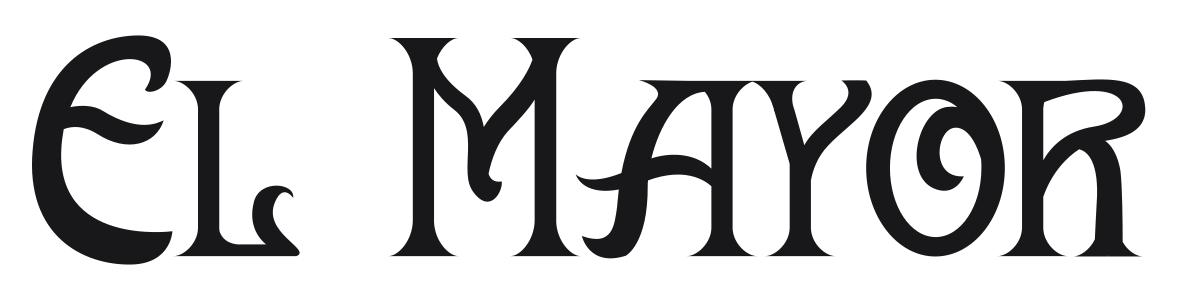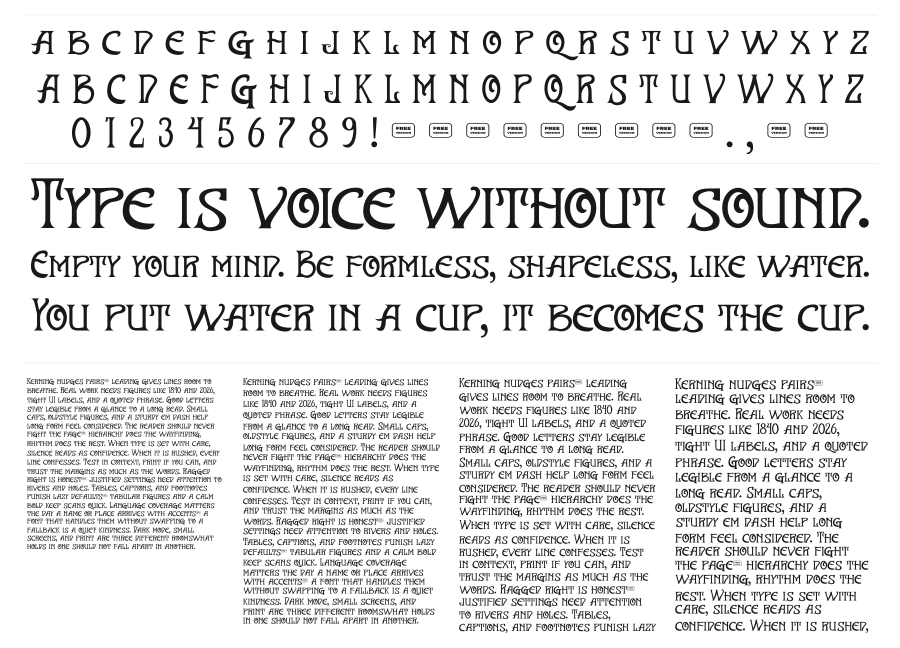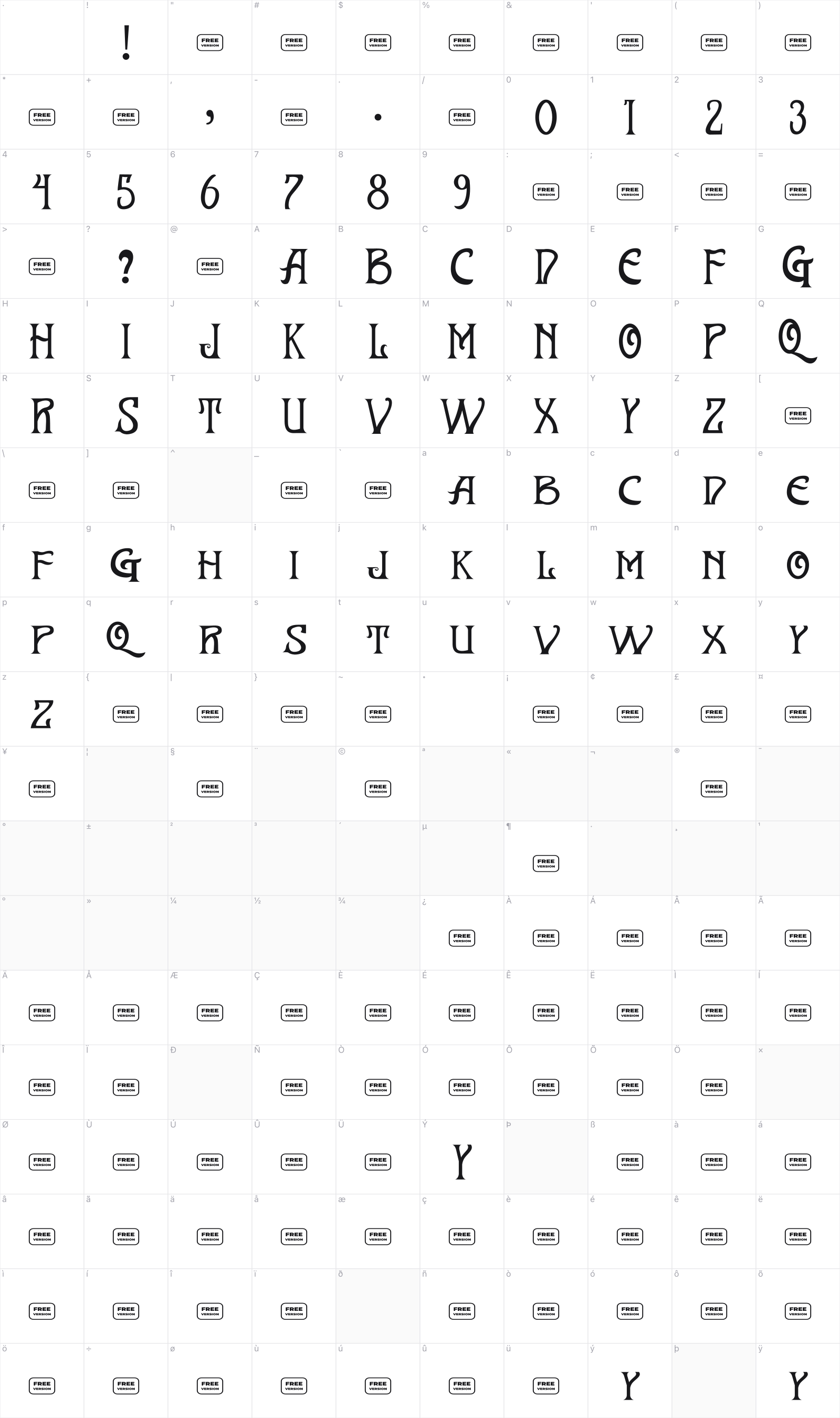
El Mayor
El Mayor is a bold decorative serif with high stroke contrast and flared Art Nouveau-inflected serifs that give it an unmistakable festive energy. The wide, heavy characters carry warmth and handcraft without tipping into heavy blackletter territory. It reads confidently on restaurant menus, event posters, and packaging where personality is the point.